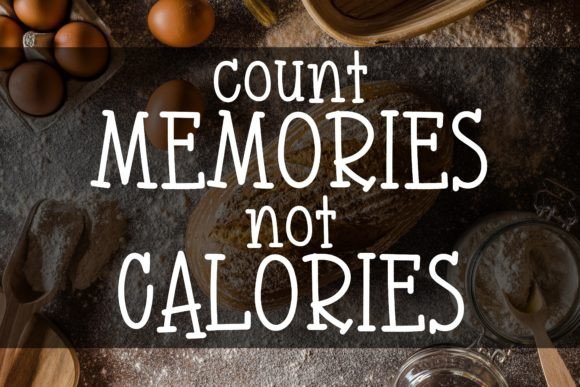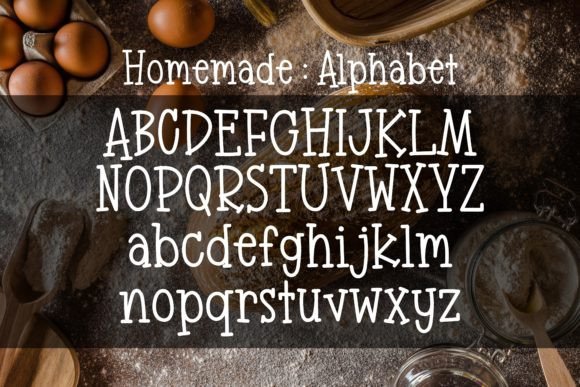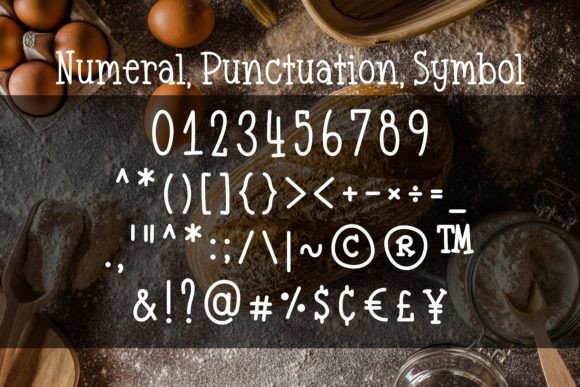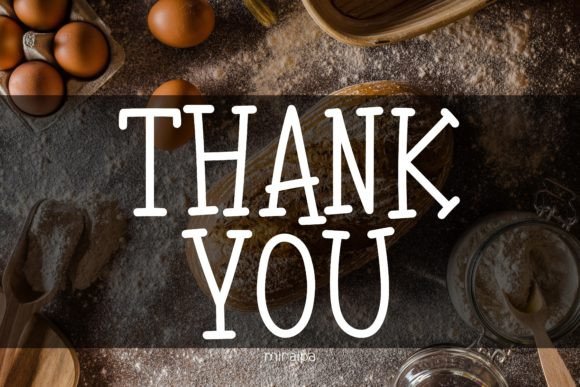
Give Your Projects a Personal Touch with Homemade Font
Have you ever stumbled upon a design that just makes you smile, and you can’t help but wonder how it was created? I’m sure many designers can relate to that moment when inspiration strikes, and the desire to create something special takes over. For me, that moment often comes when I’m brainstorming ideas for a new project or planning a special event.
That’s where the Homemade Font comes in – a delightful, handwritten serif font designed to add a friendly touch to any project. This charming font is perfect for DIY enthusiasts, crafty bloggers, and designers looking to give their work a personal, homemade feel. With the Homemade Font, you can elevate your back-to-school projects, wedding invitations, party decorations, and more, making them truly unique and special.
Key Features of Homemade Font
- Font Family: Homemade Font comes in 3 font families: Regular, Bold, and Italic, providing a comprehensive range of styles for various design applications.
- Size: The font family includes a range of sizes, from 8pt to 72pt, allowing for flexible use in various design contexts.
- Unique Characteristics: Homemade Font features a distinctive, hand-drawn design aesthetic, with subtle imperfections and quirks that add to its charm and character.
Designer Review: Homemade Font
Overall, I think the Homemade Font is an interesting addition to the world of typography. It’s unique and quirky, making it perfect for projects that require a bit of personality.
- Unique character: The Homemade Font has a distinct, hand-drawn feel that sets it apart from more traditional fonts.
- Perfect for creative projects: This font is ideal for projects that require a touch of whimsy and personality, such as children’s books, advertising campaigns, or social media graphics.
- Highly customizable: The font can be easily customized to fit your specific design needs, making it a great choice for designers who want to add a personal touch to their work.
- Limited legibility: The font’s unique character can sometimes make it difficult to read, especially at smaller font sizes.
- Lack of consistency: The font’s hand-drawn feel can also make it appear inconsistent, which may be distracting for some users.
In conclusion, the Homemade Font is a great choice for designers who want to add a bit of personality to their work. While it may have some limitations, its unique character and high level of customization make it a great addition to any designer’s toolkit.
Use your homemade font to add a personal touch to your designs.
Perfect for creating custom logos, branding materials, or social media graphics.
Experiment with different font styles and combinations to create unique and eye-catching designs.